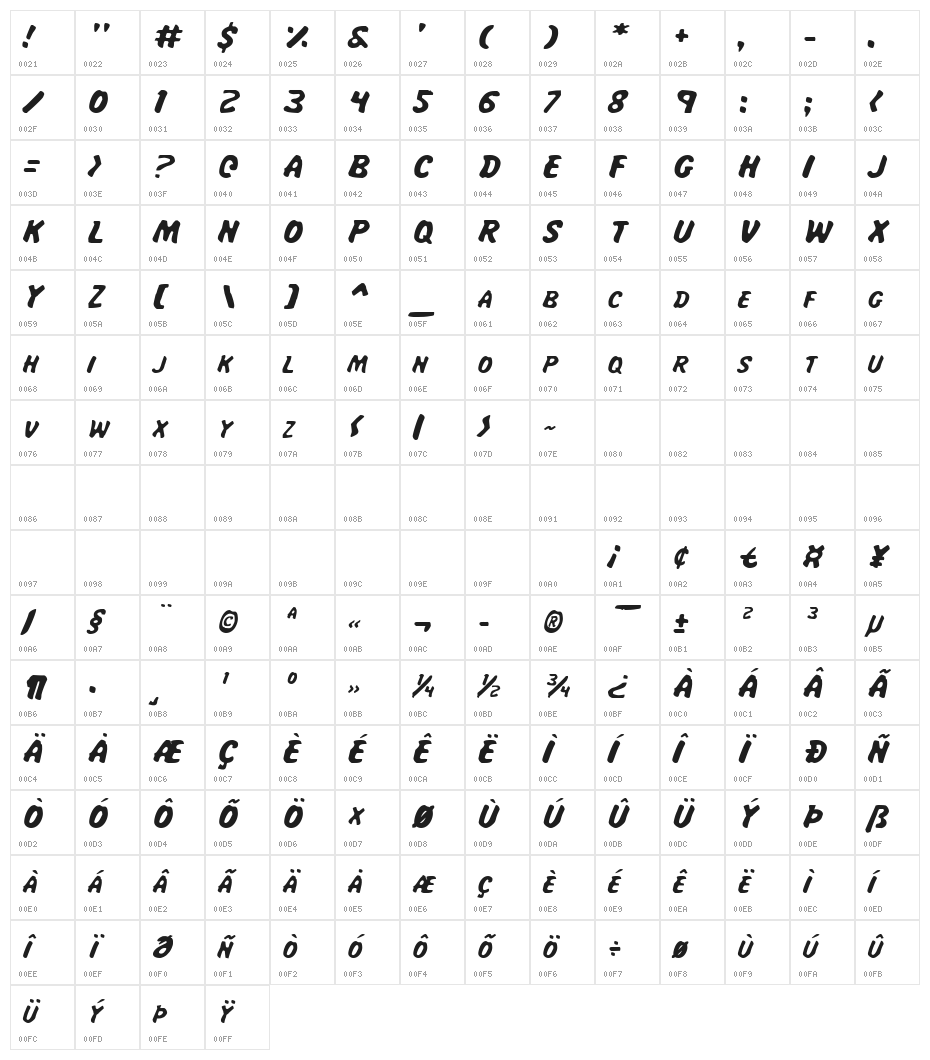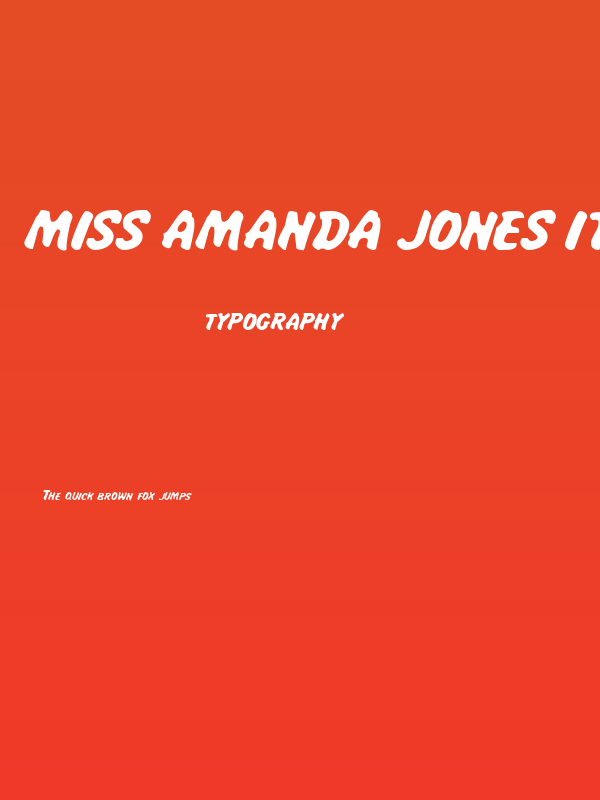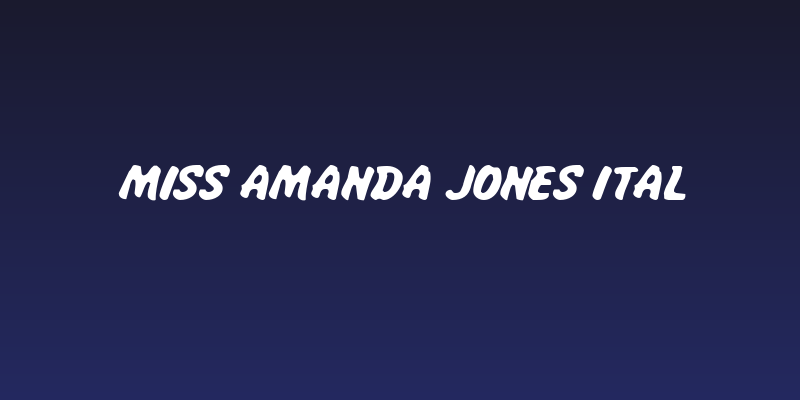
Miss Amanda Jones Ital Font
Miss Amanda Jones Ital Description
This font features a bold, playful style with a handwritten appearance. The characters are rounded and slightly slanted, giving a dynamic and energetic feel. The uppercase and lowercase letters maintain a consistent weight, contributing to a cohesive look. The numbers and special characters follow the same stylistic approach, ensuring uniformity across all glyphs. The font's boldness makes it stand out, while the slight slant adds a touch of movement and personality. It's well-suited for projects that require a lively and informal touch.
| Overall Style | Playful, Energetic |
| Proposed Projects | Ideal for greeting cards, children's books, playful branding, and social media graphics. |